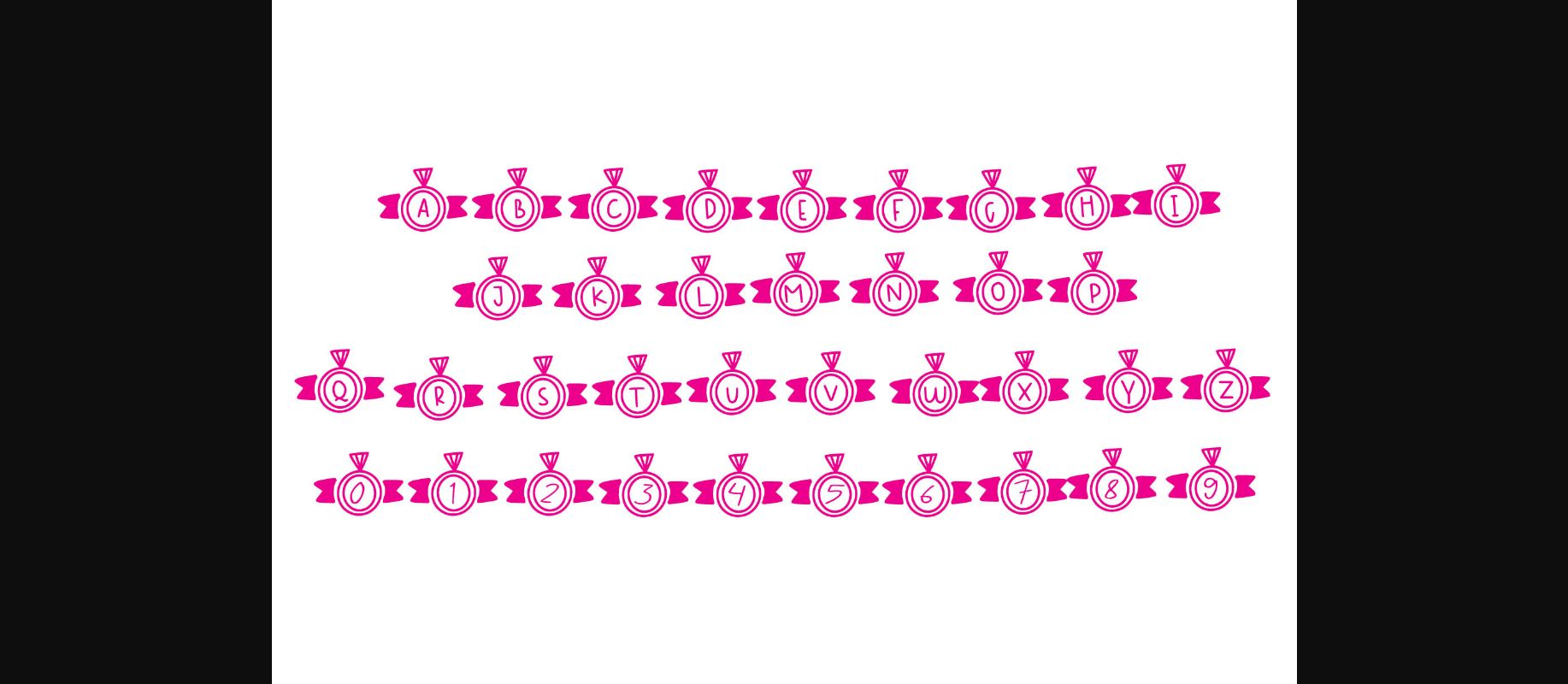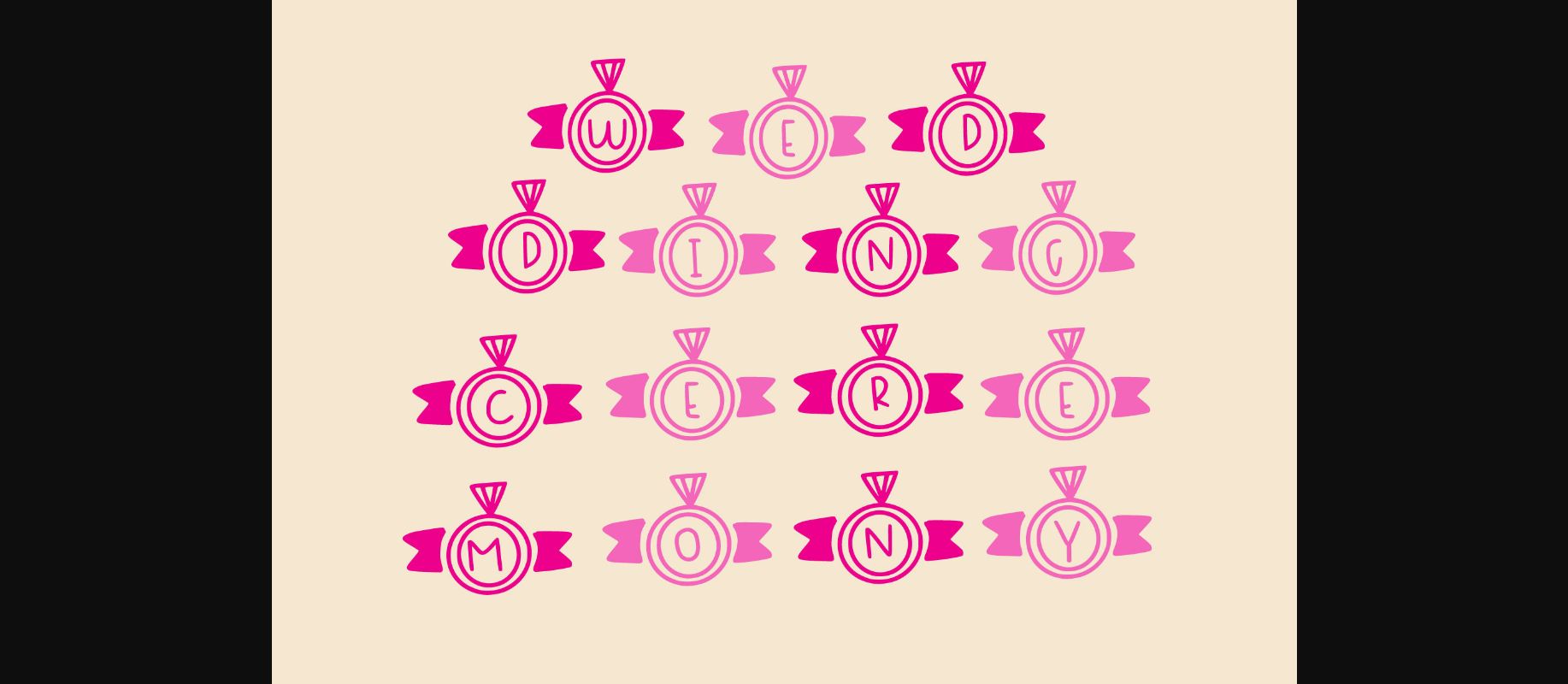
Wedding Badge Dingbats Font
About Wedding Badge Dingbats Font
Wedding Ceremony is a dainty and unique decorative font. Add this romantic and lovely looking font to each of your love letters, wedding invitations or favorite design ideas, and you will be astounded by the outcome.